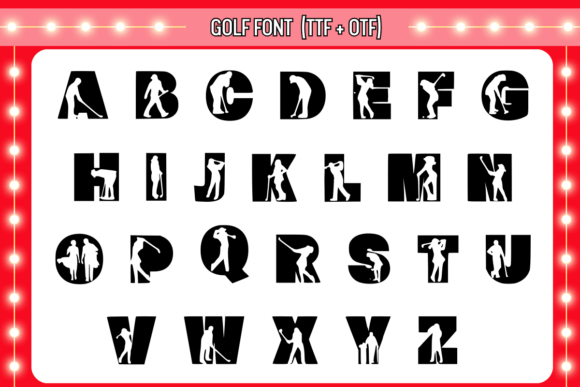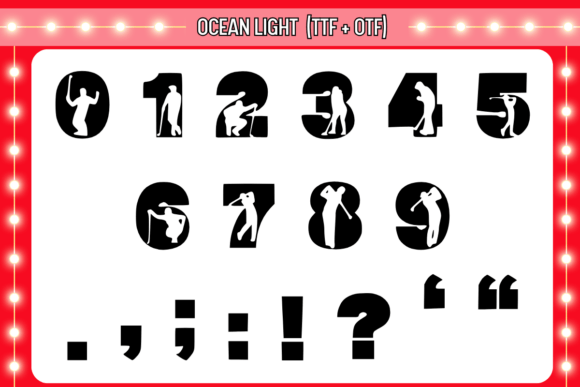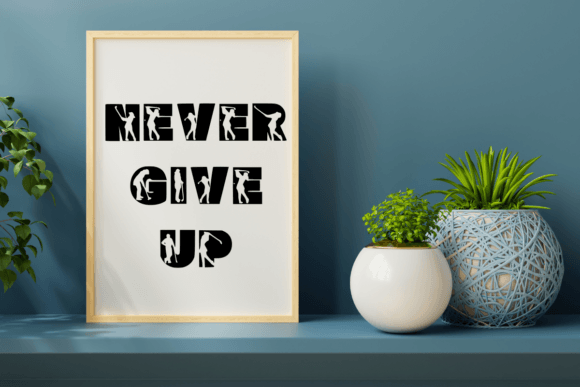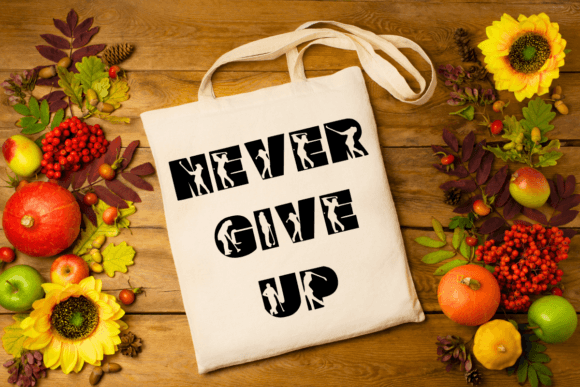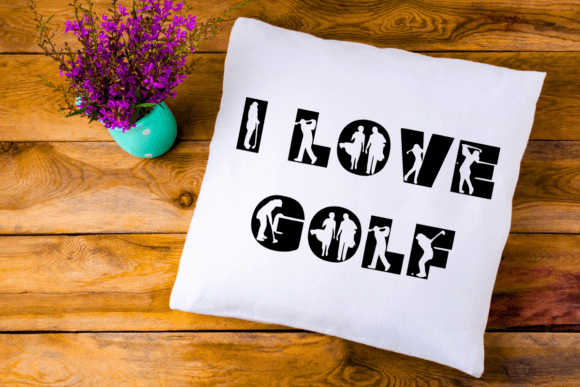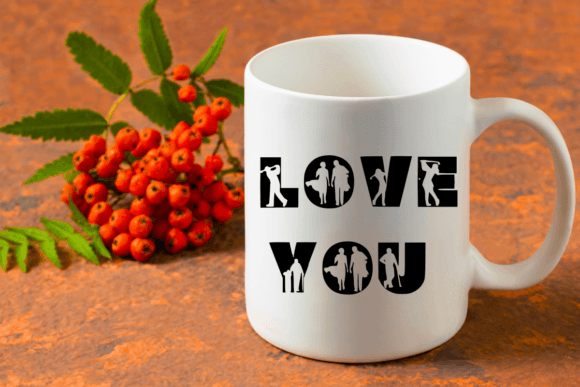
Golf Font: Adding Playfulness and Authenticity to Your Designs
Golf font is a delightful and vibrant decorative font that embodies the spirit of playfulness and authenticity. This charming font is perfect for designers and crafters looking to add a touch of fun and whimsy to their projects, especially those related to children’s activities or school assignments.
What Makes Golf Font So Special?
Golf font is a chunky lettered font that instantly brings a sense of excitement and energy to any design. Its cute and colorful aesthetic makes it an ideal choice for projects that require a playful and youthful touch. Whether you’re working on a children’s book, a school project, or a fun craft, Golf font is sure to make your design come alive!
Key Features of Golf Font
- Playful and Whimsical: Golf font is designed to evoke a sense of playfulness and fun, making it perfect for projects that require a lighthearted and carefree approach.
- Cute and Colorful: The font’s vibrant and colorful aesthetic makes it an excellent choice for designs that need to capture the attention of children or young audiences.
- Chunky Lettering: Golf font features chunky lettering that adds a sense of texture and depth to your designs.
- Authentic and Unique: This font has a distinctive and authentic feel that sets it apart from other decorative fonts.
Uses for Golf Font
Golf font is incredibly versatile and can be used in a wide range of projects, including:
- Children’s Books and Activities: Add a playful touch to your children’s book or activity sheets with Golf font.
- School Projects: Make your school projects stand out with this fun and engaging font.
- Crafts and DIY: Use Golf font to add a personal touch to your craft projects, such as handmade cards, invitations, or decorations.
- Digital Designs: Incorporate Golf font into your digital designs, such as social media graphics, blog posts, or website headers.
Tips for Using Golf Font Effectively
To get the most out of Golf font, here are some tips to keep in mind:
- Use it Sparingly: While Golf font is playful and fun, it’s best to use it sparingly to avoid overwhelming your design.
- Pair it with Other Fonts: Combine Golf font with other fonts to create a visually appealing contrast and add depth to your design.
- Experiment with Colors: Try out different colors and color combinations to find the perfect match for your design.
Golf font is a delightful and versatile decorative font that’s perfect for designers and crafters looking to add a touch of playfulness and authenticity to their projects. With its chunky lettering, cute and colorful aesthetic, and authentic feel, Golf font is sure to make your designs come alive! Whether you’re working on a children’s book, a school project, or a fun craft, Golf font is an excellent choice.